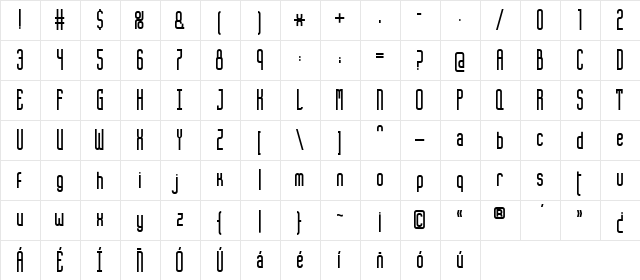
DO Aposento Regular
Design Context for DO Aposento Typeface
DO Aposento takes a measured approach to typography — its balanced proportions and neutral character make it a reliable workhorse for both digital and print work.